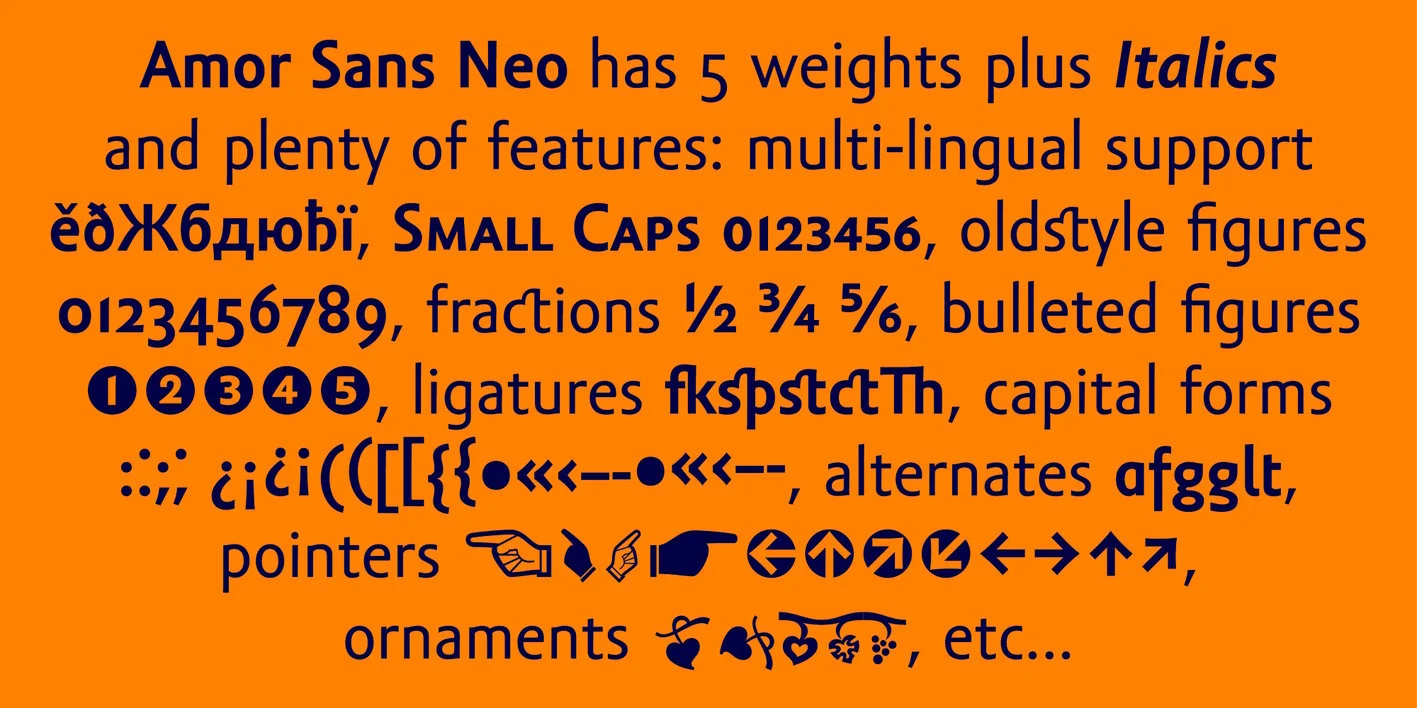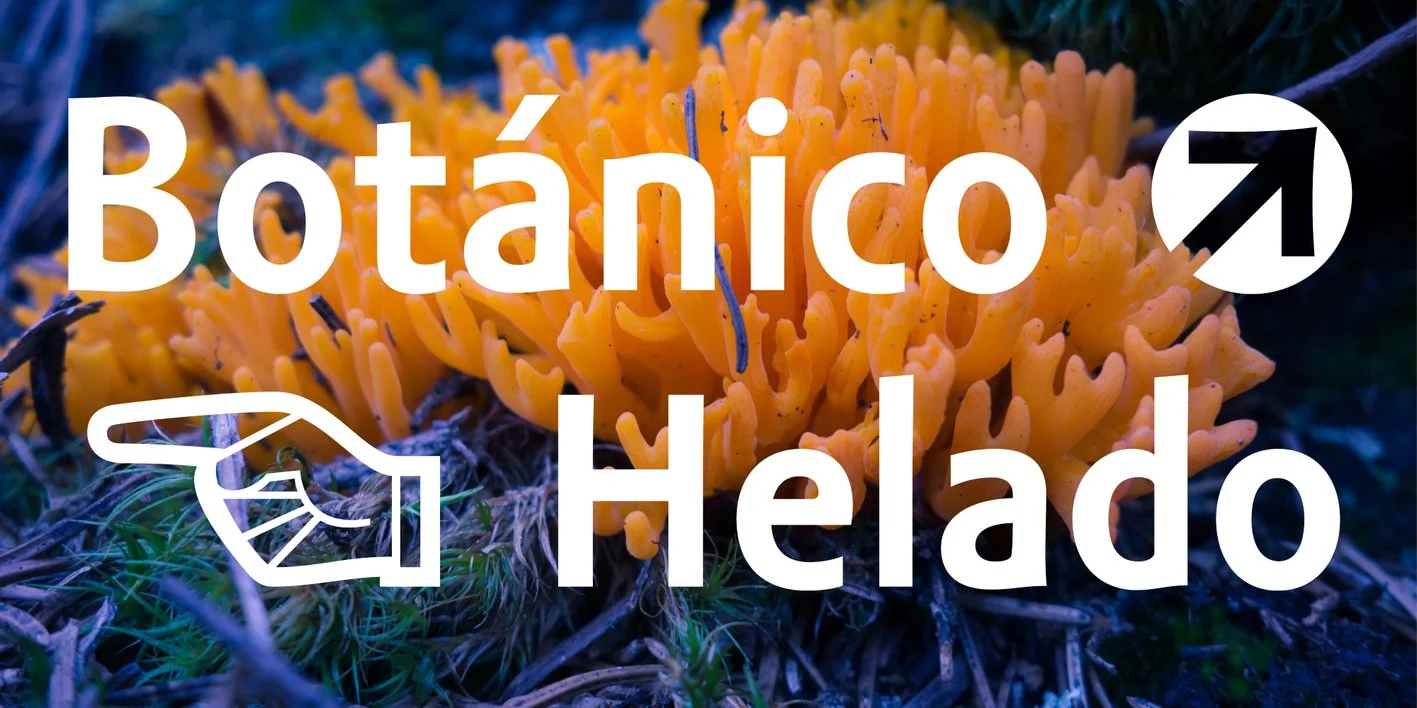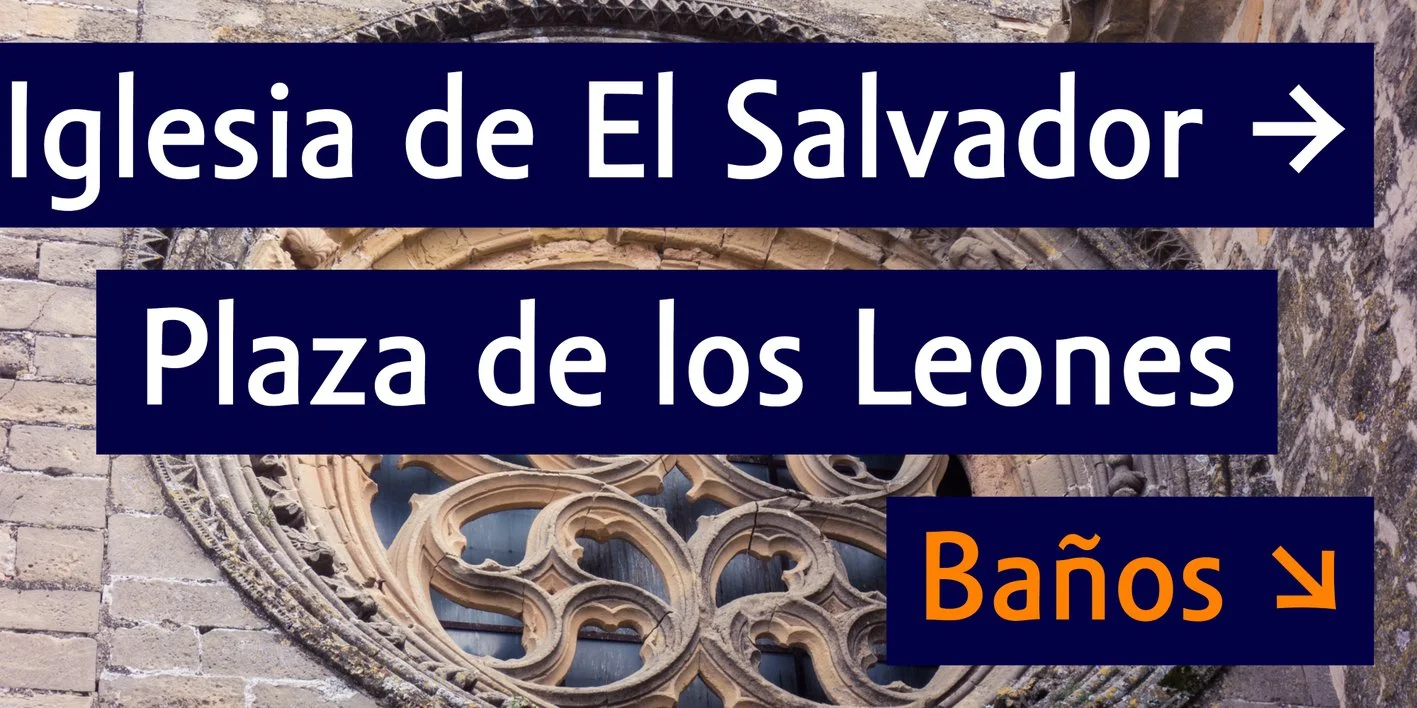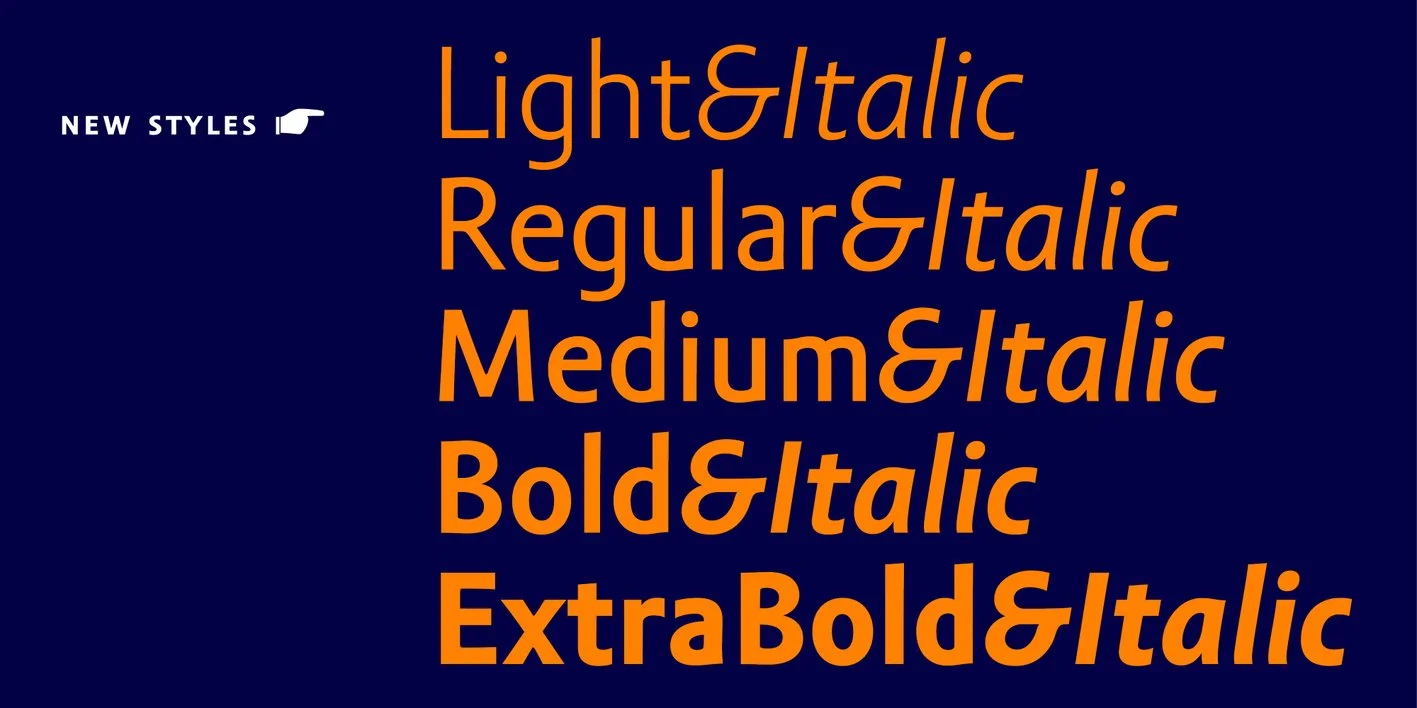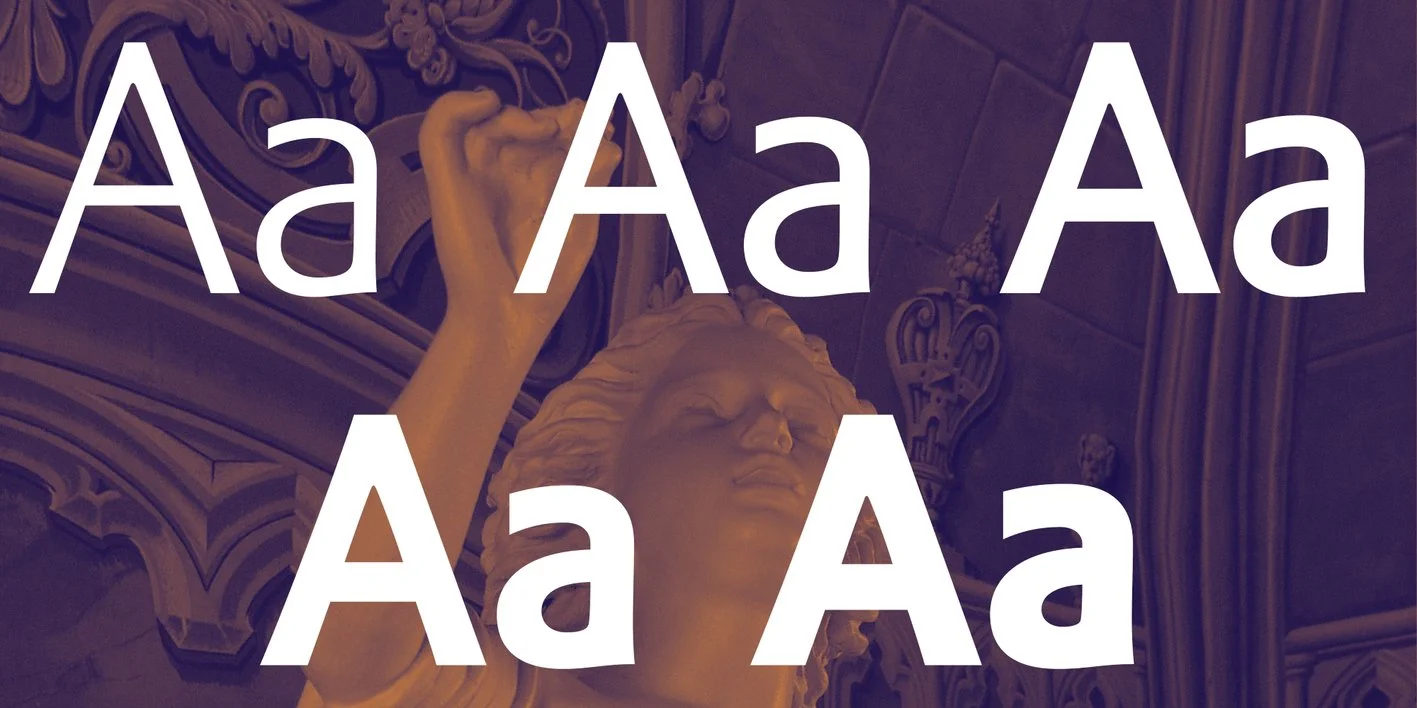
Amor Sans Neo Font
A good typeface communicates tone before a single word is read. Amor Sans Neo achieves this through controlled contrast that rewards close inspection. The typeface brings a clean, humanist sensibility to a broad range of creative disciplines, with a confident voice that adapts to diverse briefs that holds up whether the work is print-first or screen-first.
In practice, Amor Sans Neo proves particularly effective for SaaS dashboards, wayfinding systems, advertising campaigns, annual reports, logo design. Designers reaching for it find that the type decisions feel resolved rather than laboured — a useful quality when client timelines are tight.
Unlike geometric sans-serifs built on circles and squares, this design takes its cues from the proportions of classical Roman letterforms, producing a warmth that sustains reader comfort over long passages of text without sacrificing the clean lines expected in modern digital interfaces.
The range of applications extends to signage systems, poster creation, presentation decks, environmental graphics. That breadth is deliberate: the proportions and spacing were stress-tested across a wide range of mock briefs before the typeface was finalised.
Pairing Amor Sans Neo with a contrasting serif or a neutral grotesque gives mixed-format layouts a clear visual grammar without requiring constant size adjustments to establish hierarchy.
Brand strategists building visual languages find Amor Sans Neo a reliable choice for projects that demand both personality and restraint. The design avoids the self-conscious quirkiness that dates quickly, settling instead for considered distinctiveness that holds up over time.